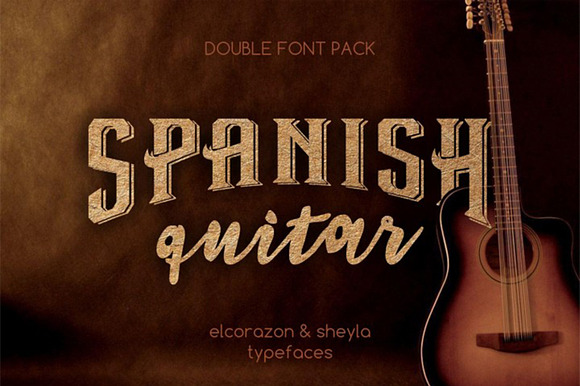
Elcorazon & Sheyla Double font set
Double font set - Elcorazon & Sheyla typefaces
Elcorazon © is a new attractive typeface with passionate letters design. Mild corners from one side compares to the graphic ornament from another side. All together integrates into beautifully constructed and aligned modern typeface with lovely letters of alphabet. Straight in shadows this font has many corners at the letter endings which creates the attractiveness, stylish and fancy looking typeface design. Please refer to the list of possible uses we have created to help designers with inspiration and add your idea in comments section below. Your contribution is highly appreciated. Please share this font with friends. Short list of possible uses for inspiration: •Book covers or inside chapters section heading •Posters or postcards design •Printed letters, envelops design, address lines •Party decorations and congratulation cards •Invitation letters and business envelopes •Text headings and graphic themes designs •Be creative – suggest any other uses of this vintage stylish designed typography quotes in comments. Let’s see what we’ve forgot…
Sheyla - A Handwritten font perfect for high impact headlines
Every single letter has been creative carefully and Perfectly Playful new font pair. This font is a perfect script designed for making your set of invitations, Brand, blog posts, and more completely beautiful
Elcorazon & Sheyla Double font set by Vintage Font Lab fits naturally into Branding, posters, packaging, typography.